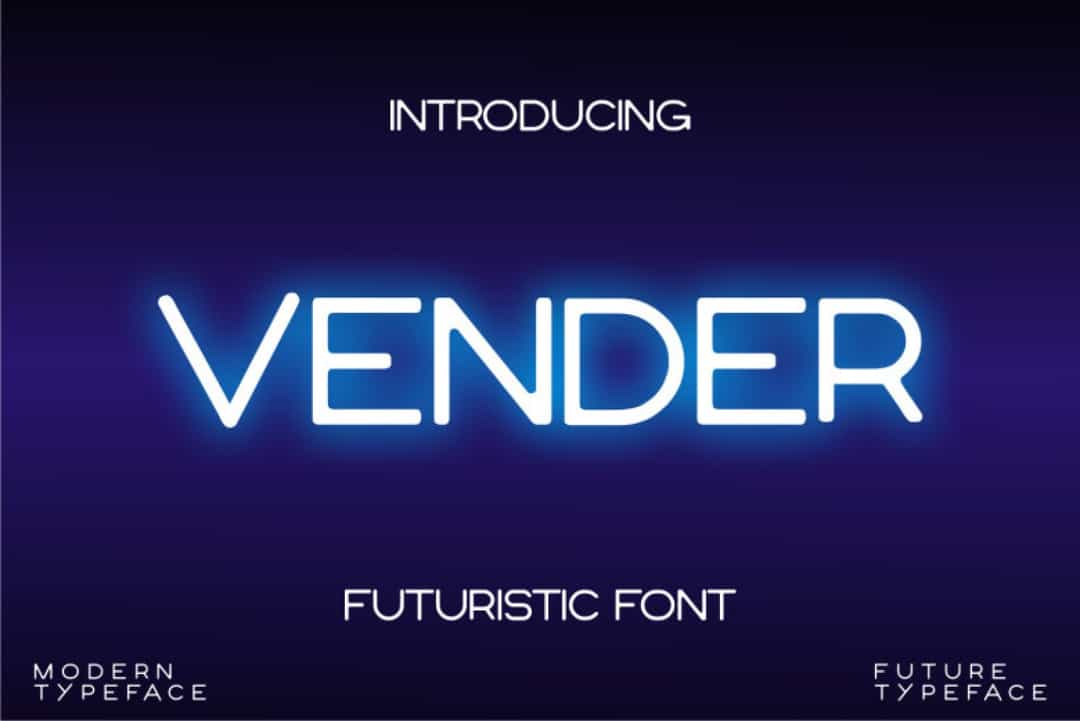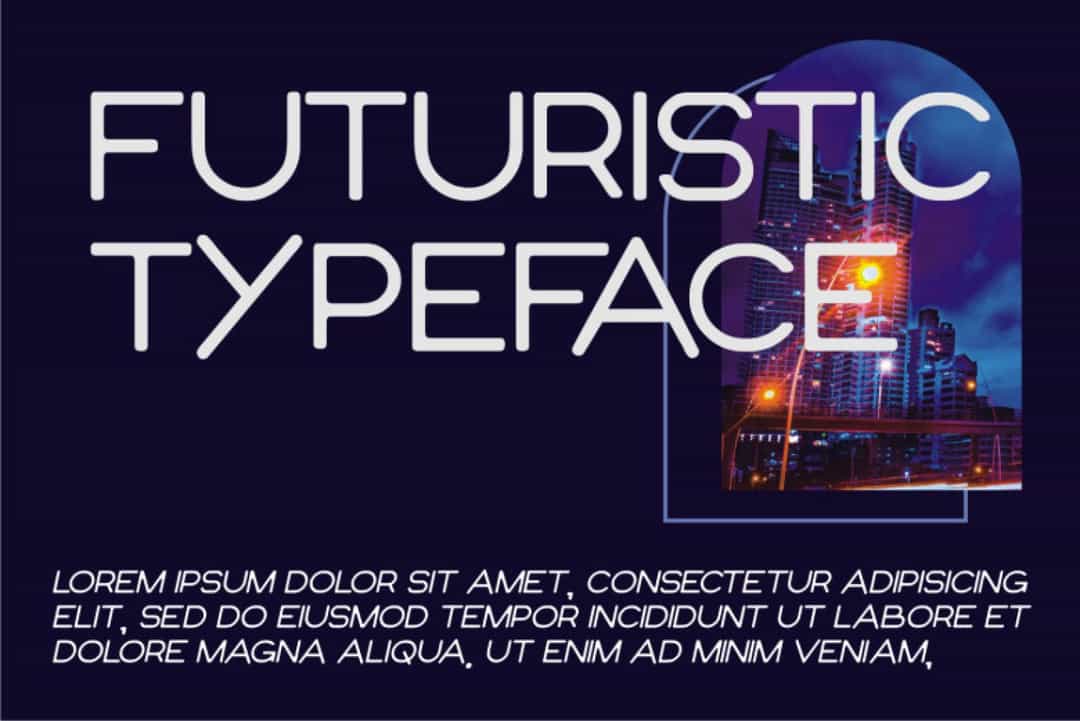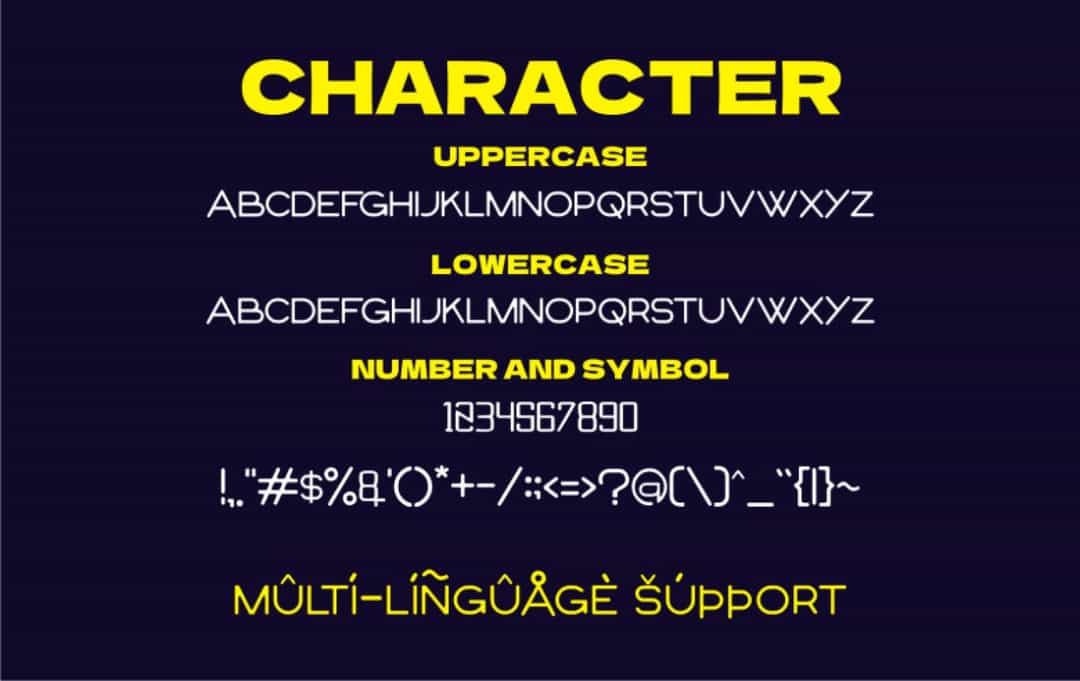
Discover Vender Font, part of the Sans Serif Display collection—a versatile and unique font perfect for adding a personal touch to your projects. Download it for free and enjoy crafting designs with style, from invitations to social media posts. This font is available exclusively for personal use, giving you the freedom to create without limits. Unlock your creativity with Vender Font today!
Vender Font is an eye-catching display typeface, ideal for web designs and business cards with its contemporary yet timeless style.